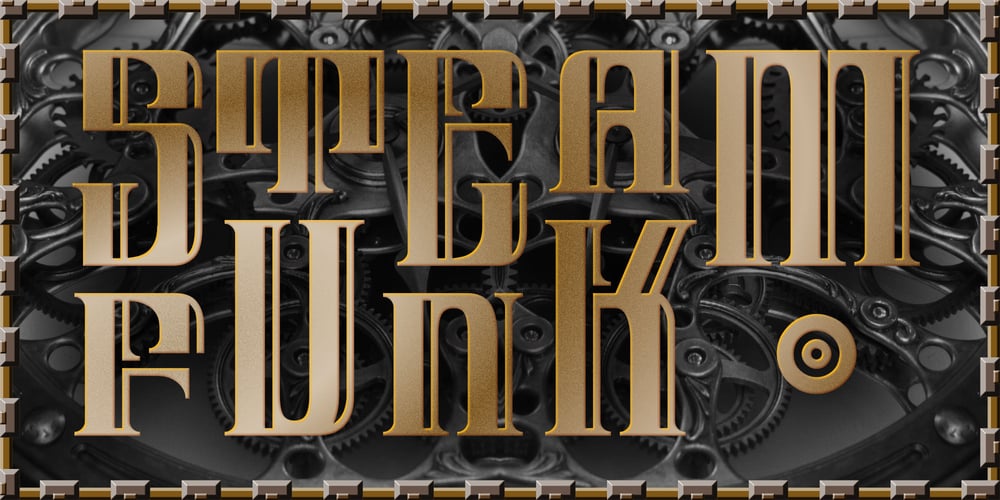
Steamfunk Font Family was designed by Michael Kovacevich and published by MKGD. Steamfunk contains 1 styles and family package options. The font Steamfunk is based on Steampunk. A form of science fiction that couples Victorian era style with futuristic devices operated by early industrial age technology. Each Steamfunk letter is constructed in two symbolic parts. A thick stroke, for the machine’s outer shell, and a second, wire-like, stroke for that machine’s delicate inner workings. The result is a look that is Steampunk in appearance, without it being exclusively so.Steamfunk has a glyph count of 398 and supports the following languages;Afrikaans, Albanian, Asu, Basque, Bemba, Bena, Bosnian, Catalan, Chiga, Colognian, Cornish, Croatian, Czech, Danish, Embu, English, Esperanto, Estonian, Faroese, Filipino, Finnish, French, Friulian, Galician, German, Gusii, Hungarian, Icelandic, Indonesian, Irish, Italian, Kabuverdianu, Kalaallisut, Kalenjin, Kamba, Kikuyu, Kinyarwanda, Latvian, Lithuanian, Low German, Lower Sorbian, Luo, Luxembourgish, Luyia, Machame, Makhuwa-Meetto, Makonde, Malagasy, Malay, Maltese, Manx, Meru, Morisyen, North Ndebele, Norwegian Bokmål, Norwegian Nynorsk, Nyankole, Oromo, Polish, Portuguese, Romanian, Romansh, Rombo, Rundi, Rwa, Samburu, Sango, Sangu, Scottish Gaelic, Sena, Shambala, Shona, Slovak, Slovenian, Soga, Somali, Spanish, Swahili, Swedish, Swiss German, Taita, Teso, Turkmen, Upper Sorbian, Vunjo, Walser, Zulu.